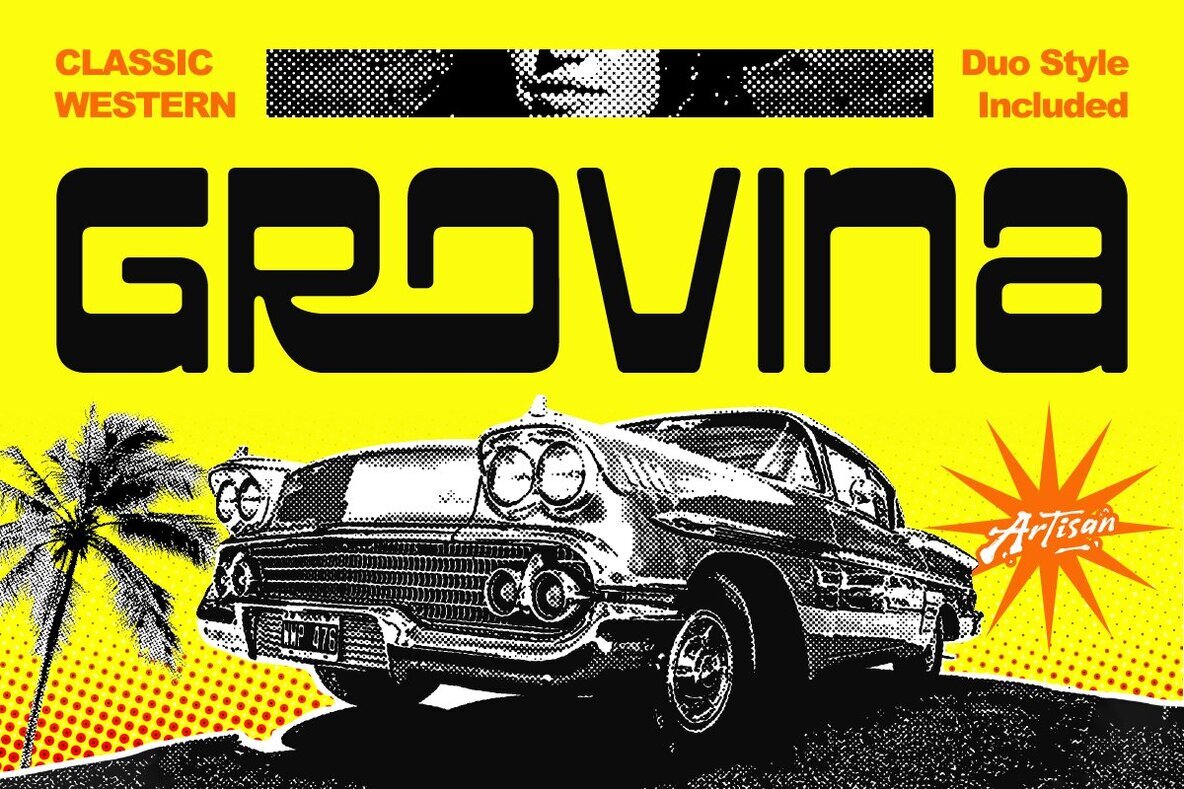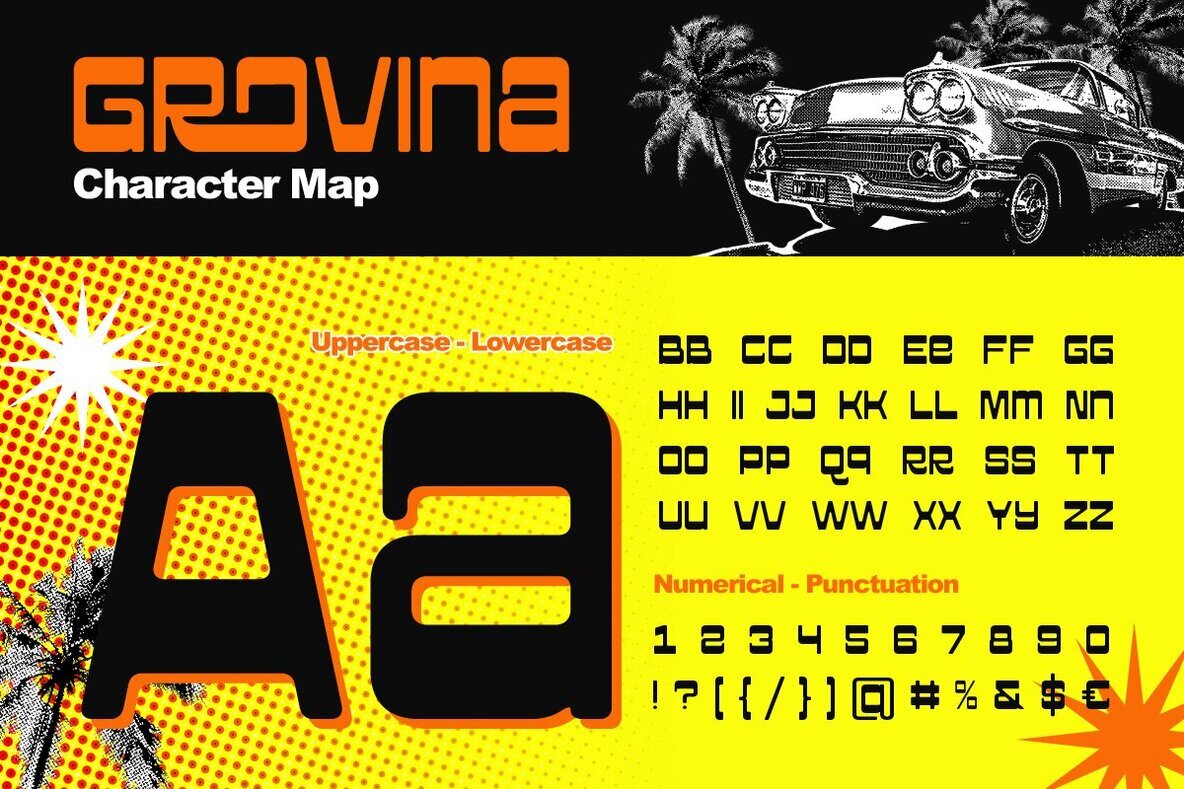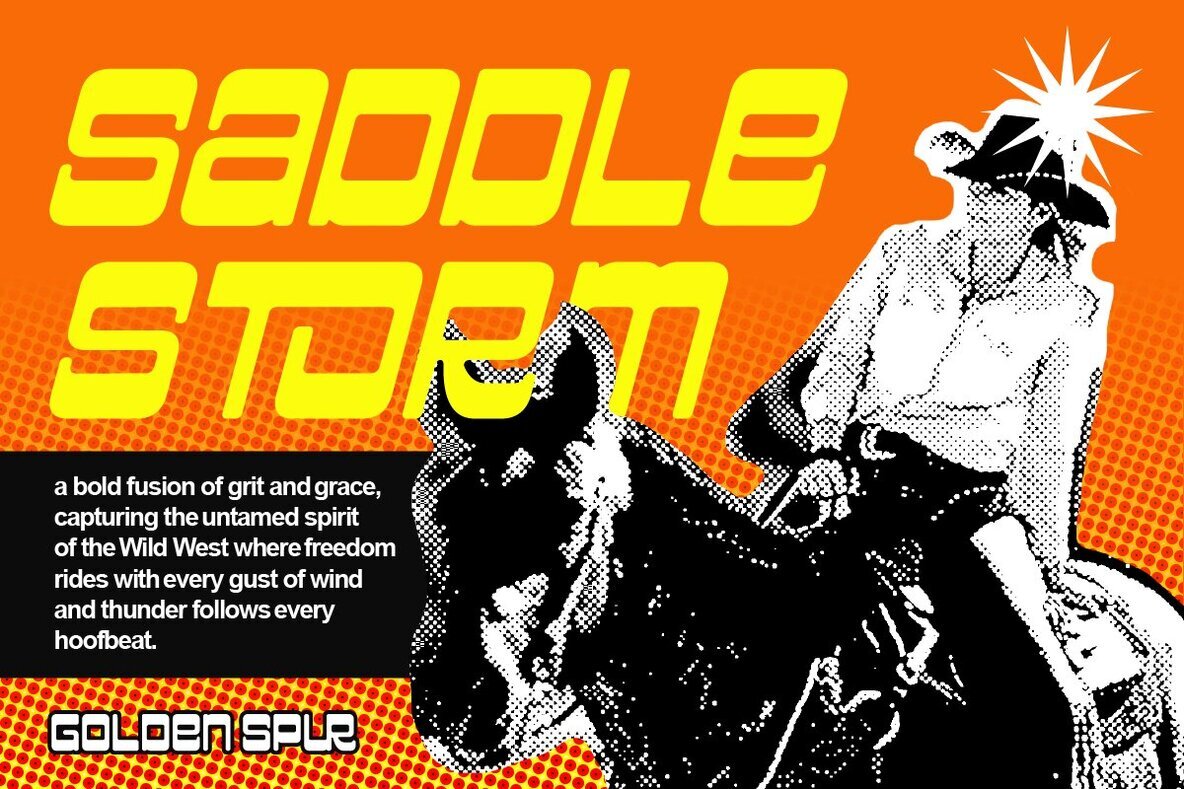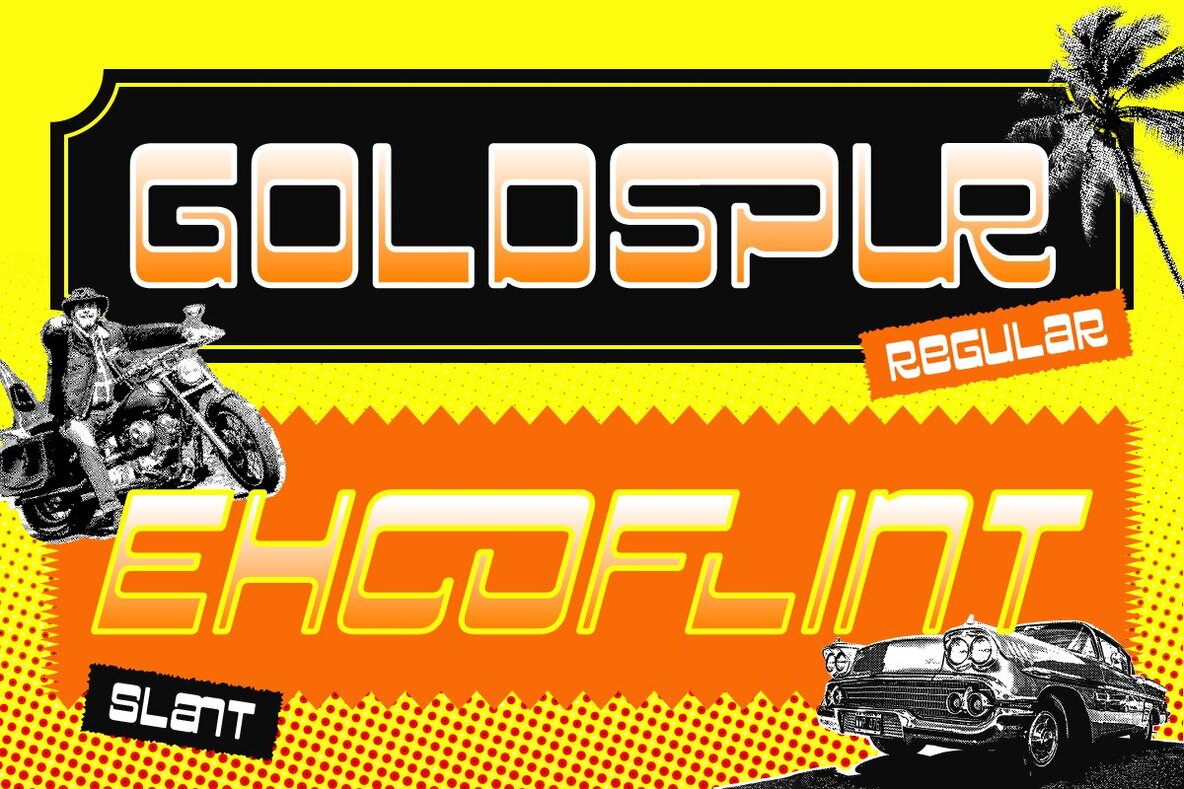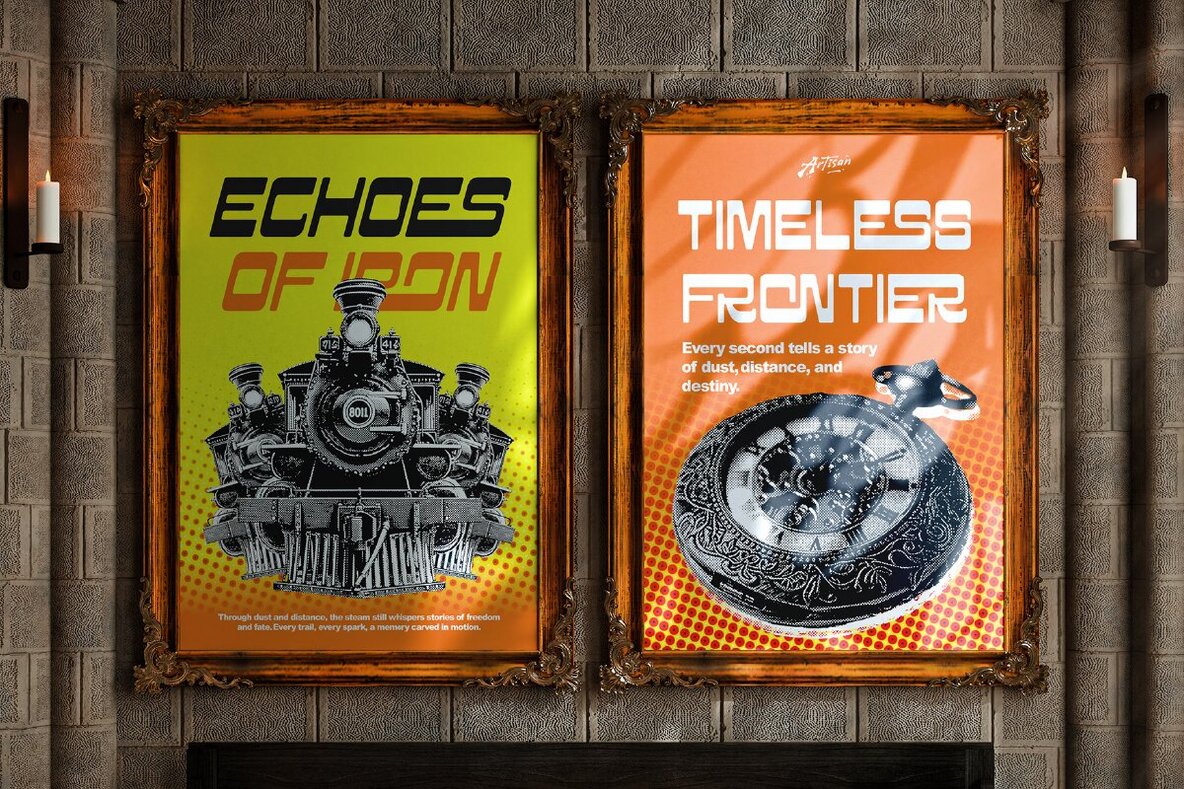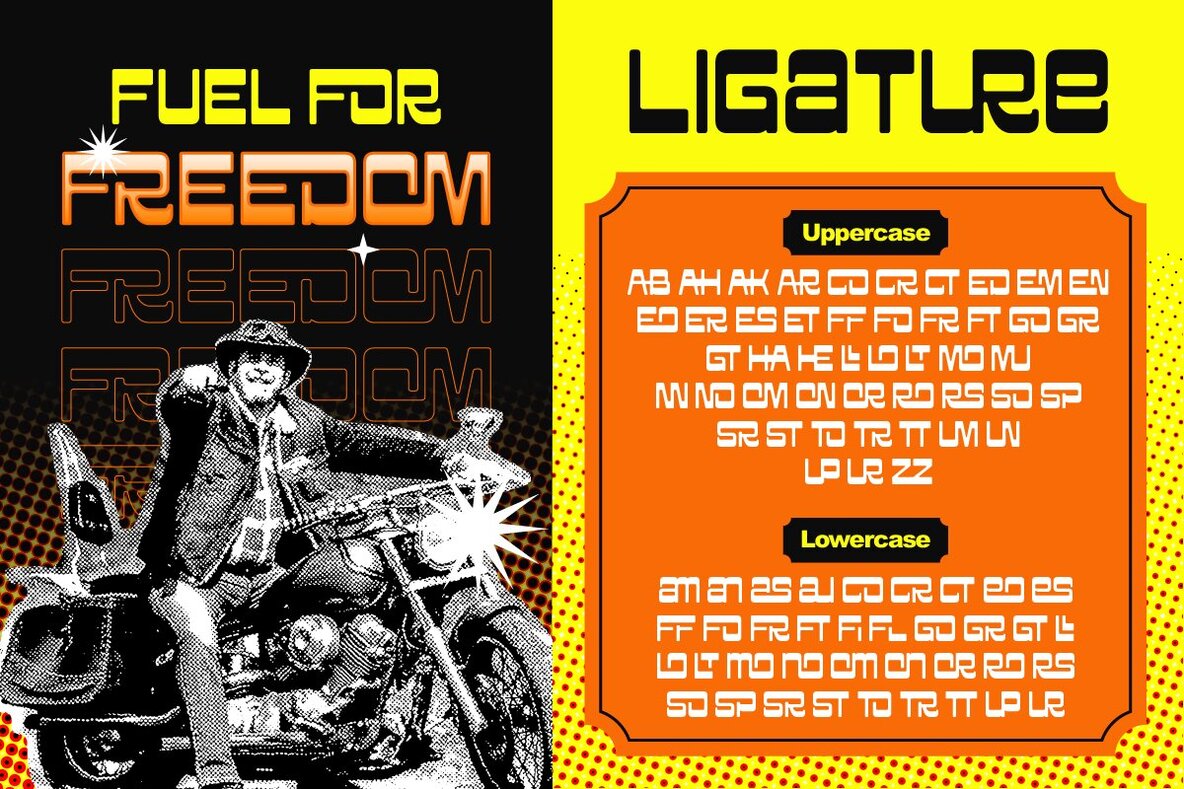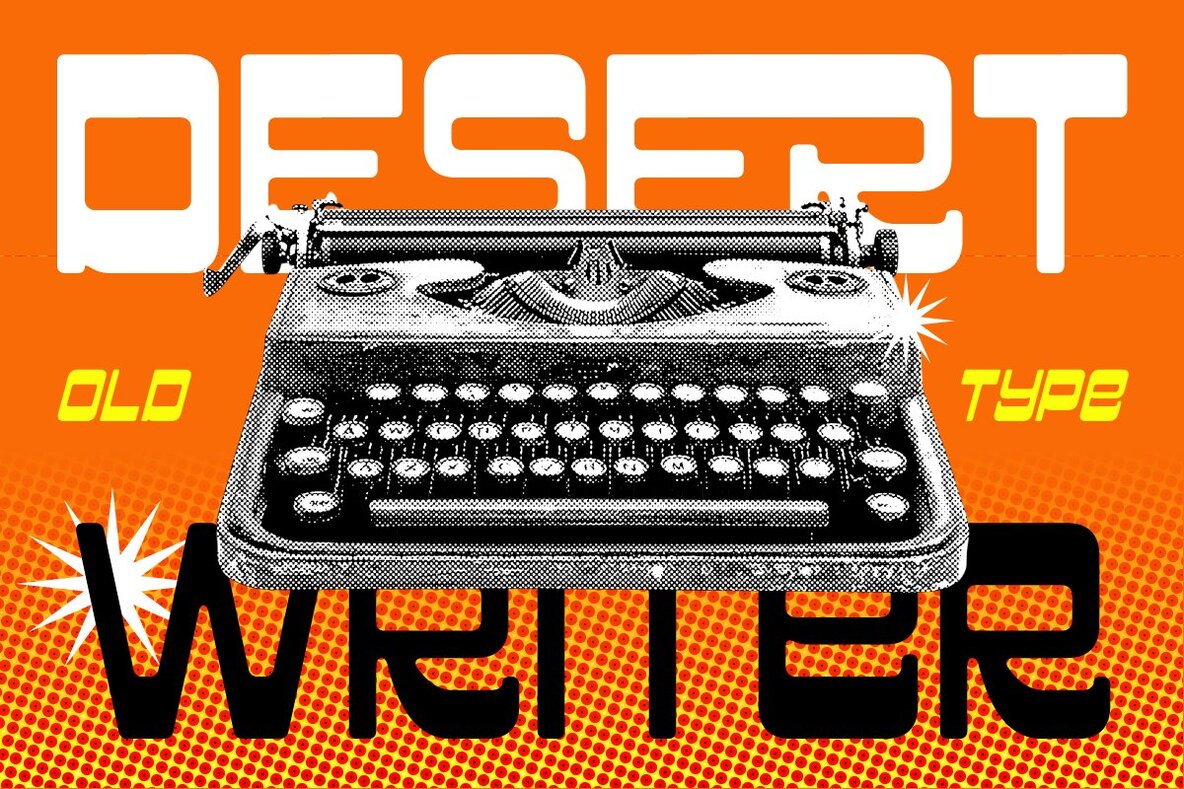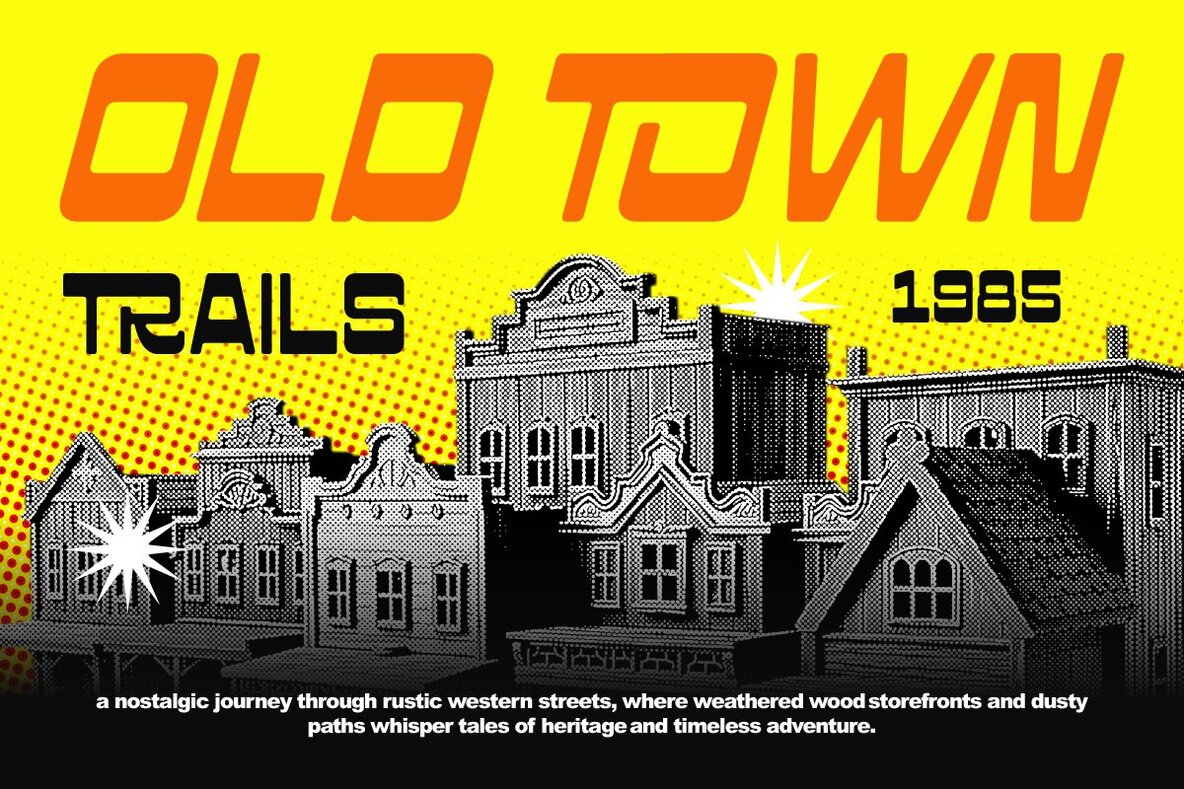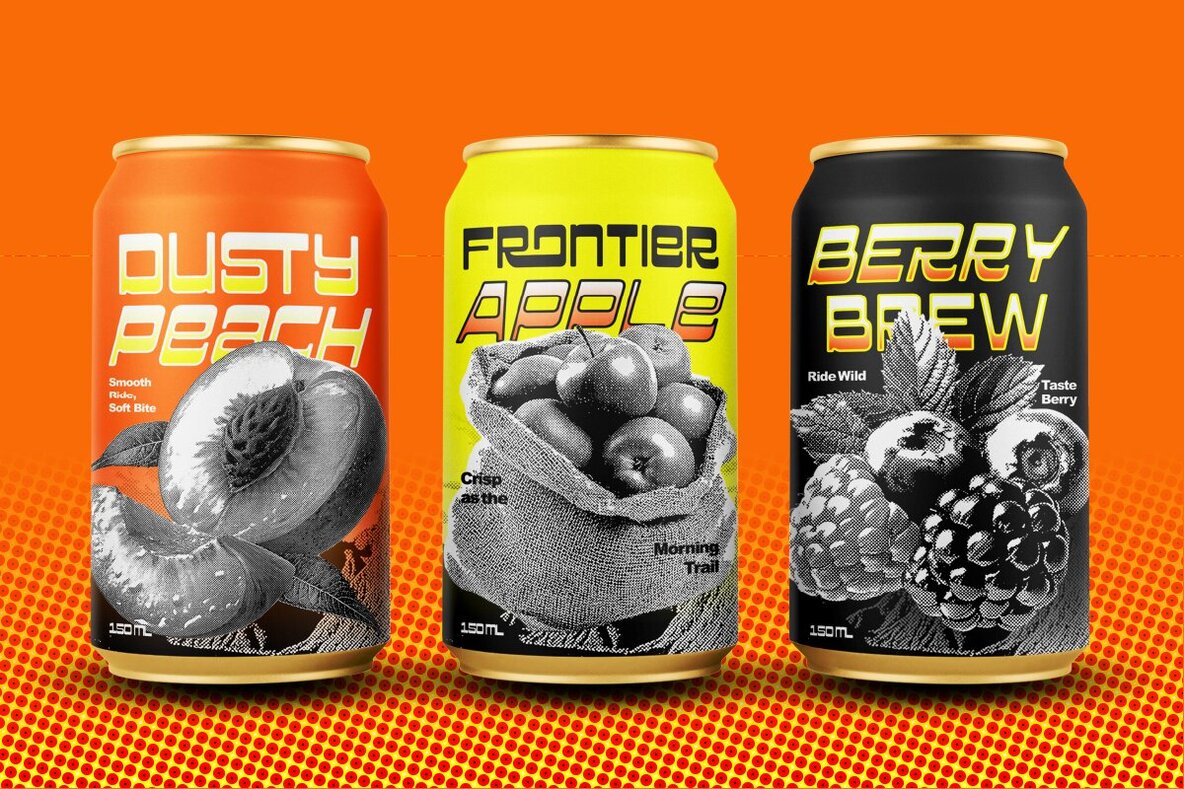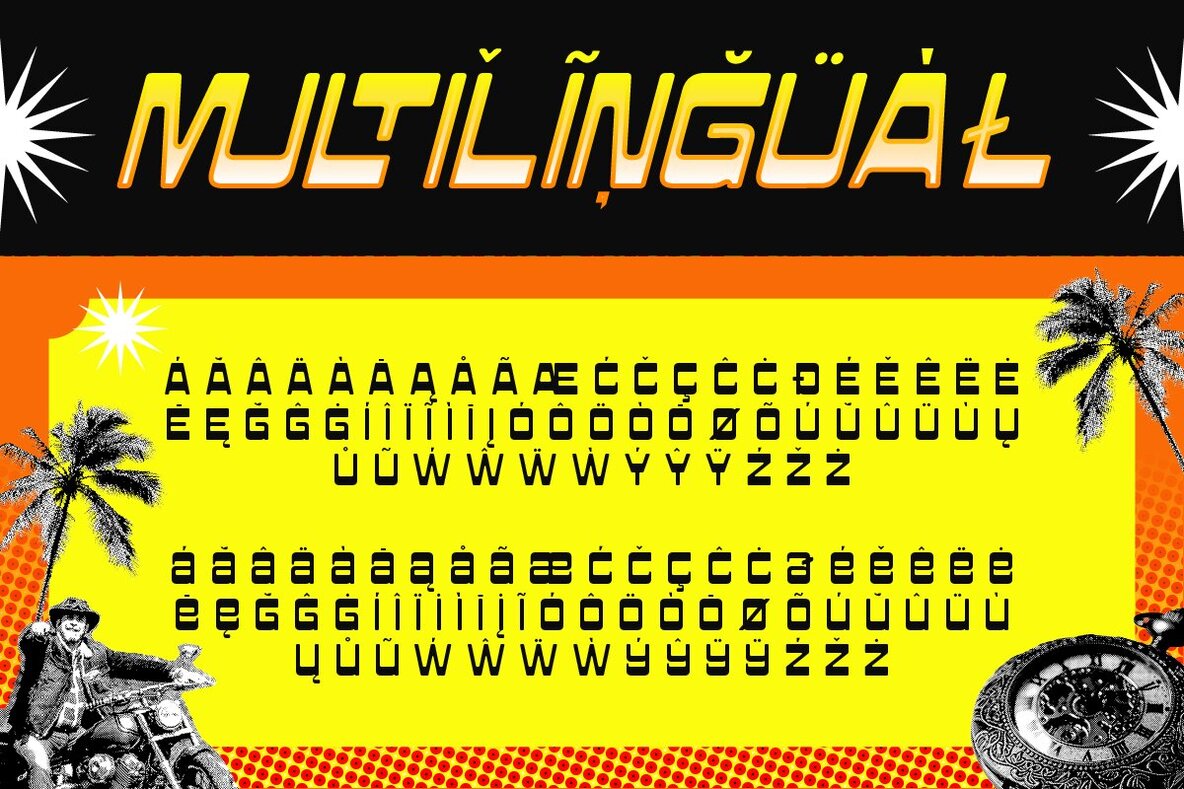
Grovina Font
Grovina Regular
Grovina Slant
Grovina commands attention with its bold retro letterforms inspired by classic car emblems, biker jackets, and iconic western movie posters. This font delivers a unique blend of grit and style, making it a standout choice for projects that require both attitude and character.Grovina Retro Typeface
The collection includes two dynamic styles—Regular and Slant—allowing you to switch effortlessly between classic and modern aesthetics. Grovina is ideal for logo designs, posters, vintage labels, or any project that benefits from strong lines and a rebellious spirit.Features